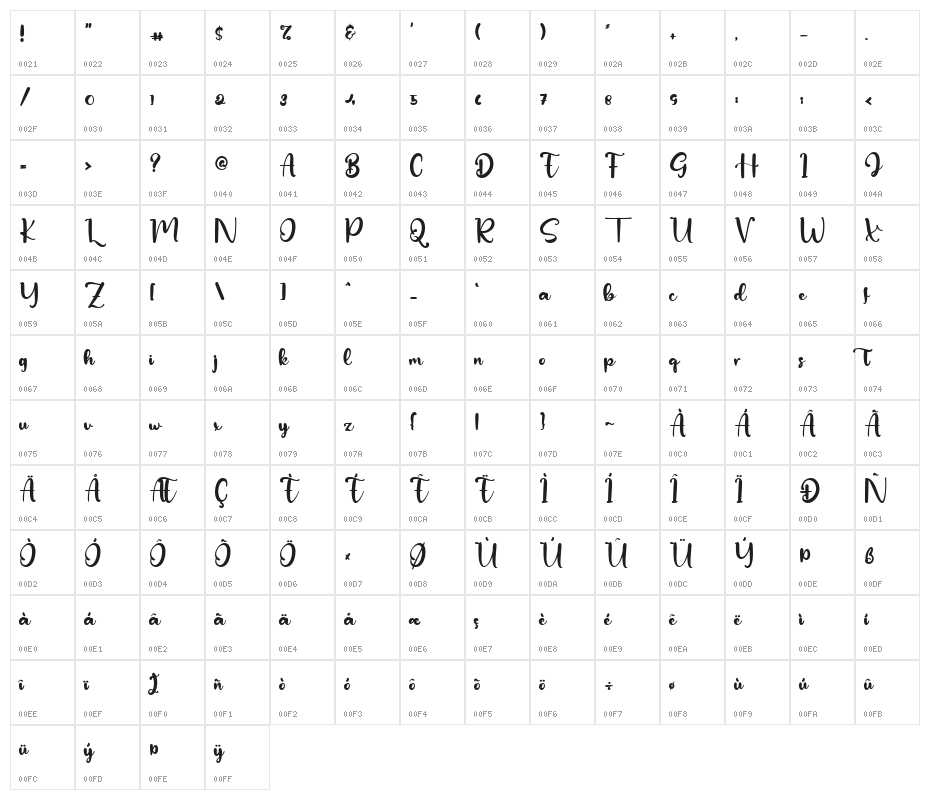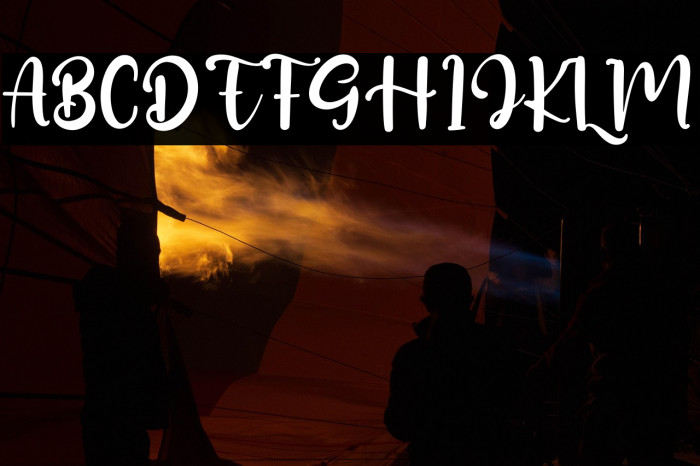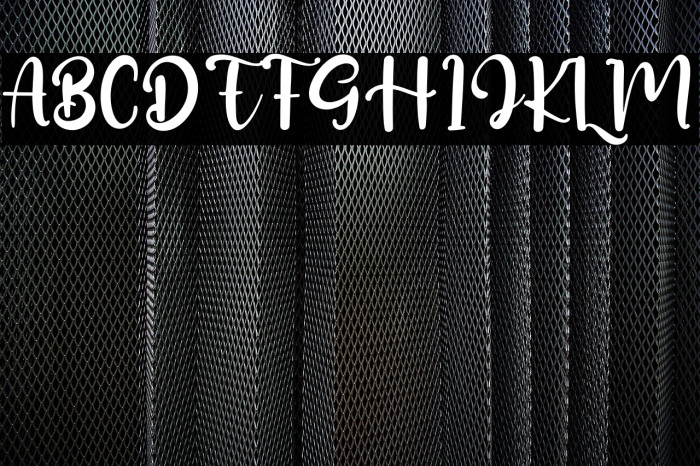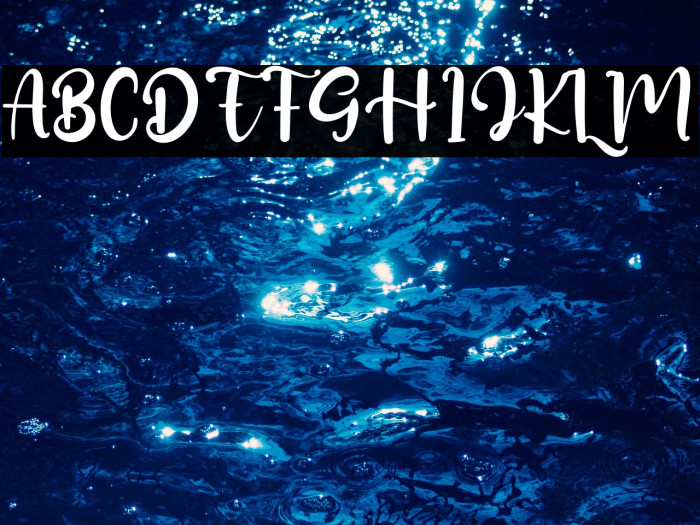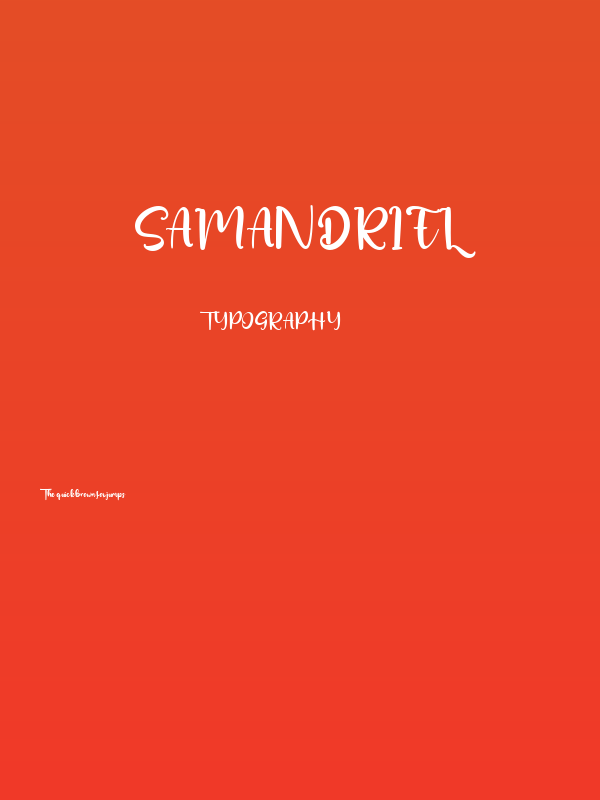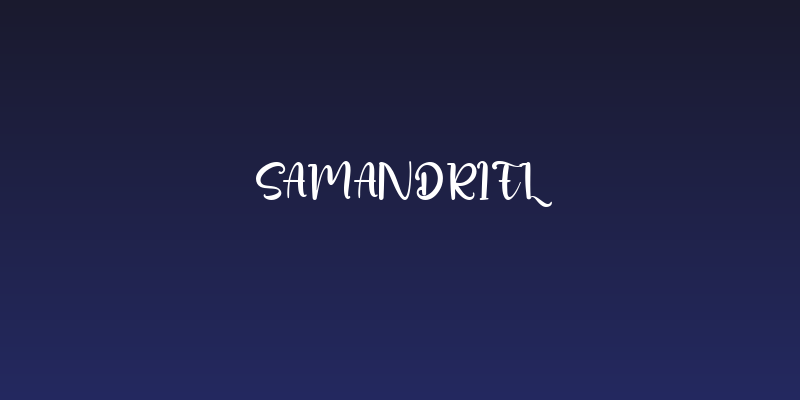
Samandriel Font
Samandriel Description
This font features a playful and whimsical script style with a handwritten appearance. The uppercase letters are bold and slightly slanted, giving a sense of movement and fluidity. The lowercase letters are more compact, with a consistent stroke width that maintains readability. The numbers and special characters follow the same playful style, making them suitable for creative projects. The overall design is cohesive, with a friendly and approachable feel, perfect for adding a personal touch to any design.
Proposed ProjectsIdeal for greeting cards, invitations, personal branding, and playful logos.